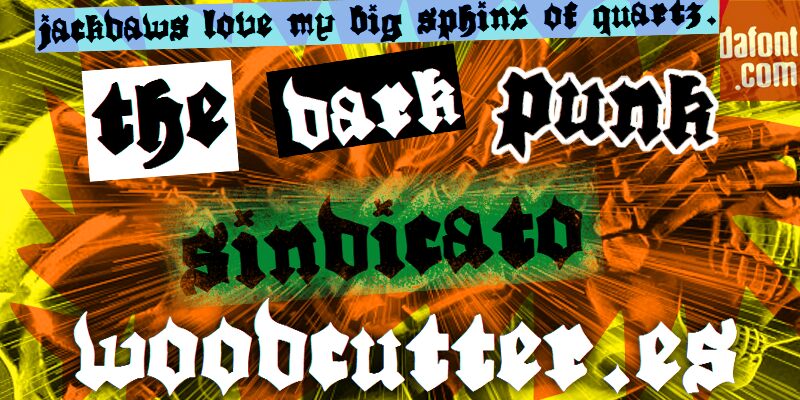
The Dark Punk Sindicato
The Dark Punk Sindicato font by Woodcutter is a modern Gothic-inspired typeface that captures a sense of tradition and drama. It possesses bold, ornate detailing that makes it instantly recognizable and intriguing for every small design. The free Gothic font evokes this old medieval vibe through thick letters and dark in-between shapes.
Use this font for strong branding in video games, movies, posters, or book covers. The font can also be applied to other business cards, logos, typography artwork, headlines in magazine articles or newspapers, social media posts and stories’ designs.